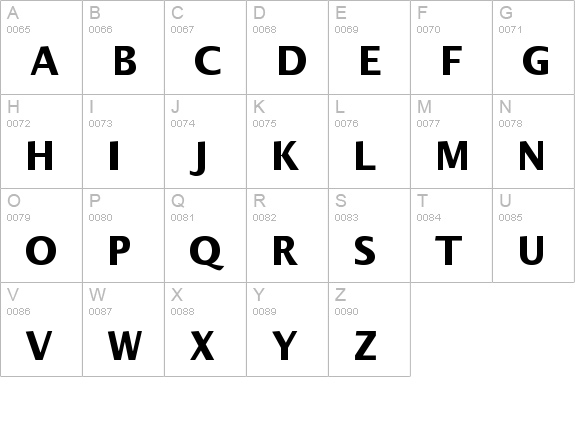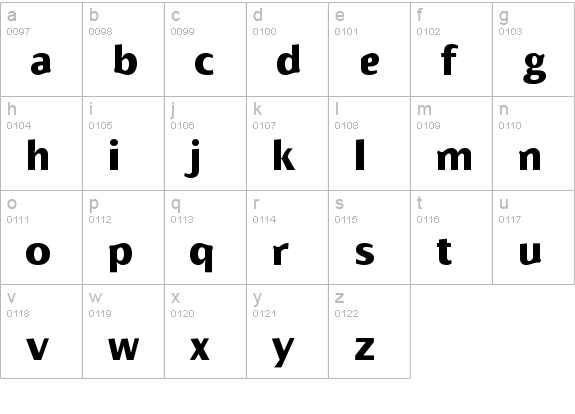
Alphabet2-Bold Font Details
Alphabet2-Bold is a strong, high-contrast variant in the Alphabet2 typeface family \xE2\x80\x94 well suited to headlines, attention-grabbing titles, and strong calls-to-action.
Alphabet2-Bold is a bold and eye-catching font that demands attention with its strong and modern aesthetic. With its clean lines and distinct letterforms, this font is perfect for making a statement in any design project. Whether you're creating a bold headline, a striking logo, or a standout poster, Alphabet2-Bold is sure to leave a lasting impression. The best part? Alphabet2-Bold is available for free download at FontsMarket.com. That's right, you can easily access this versatile font without any cost, making it a valuable addition to your font library. Don't miss out on the opportunity to elevate your designs with Alphabet2-Bold - download it today and start creating impactful visuals effortlessly.